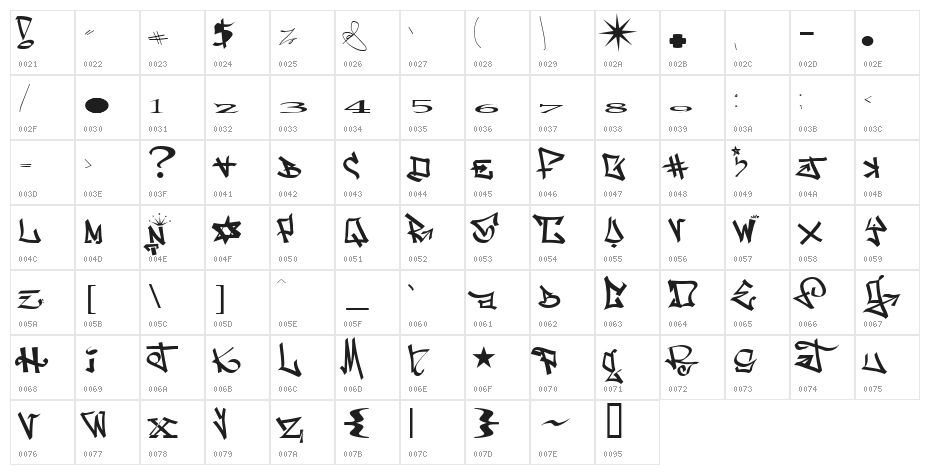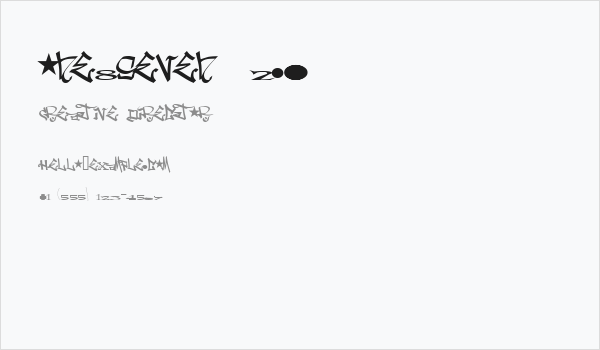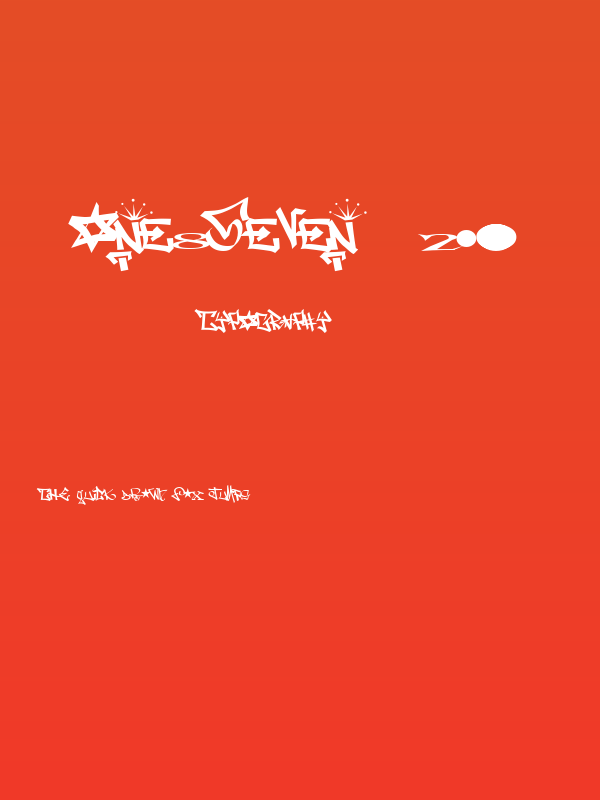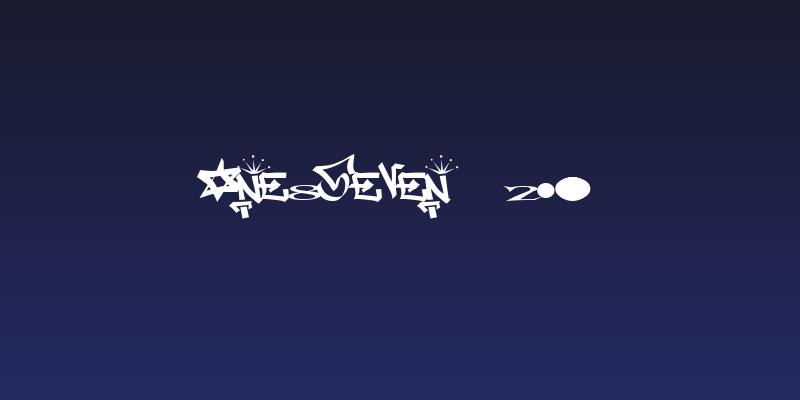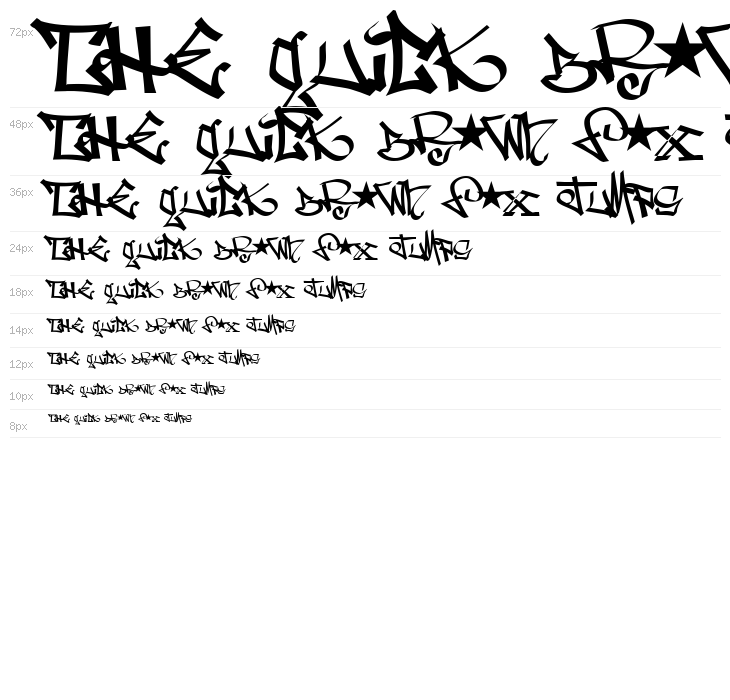
one8seven 2.0 Font
one8seven 2.0 Description
This font features a bold, graffiti-inspired style with sharp, angular lines and a dynamic, urban aesthetic. Each character is uniquely stylized, incorporating elements like stars, arrows, and abstract shapes that give it a rebellious and energetic feel. The uppercase and lowercase letters maintain a consistent theme, with exaggerated strokes and a sense of movement. Numbers and special characters are equally expressive, adding to the overall edgy and artistic vibe. This font is perfect for projects that aim to capture a street art or hip-hop culture essence.
| Overall Style | Modern, Urban, Edgy |
| Use Case | Logos, Posters, Album Covers |
| Proposed Projects | Ideal for street art designs, hip-hop album covers, urban-themed posters, and edgy branding projects. |